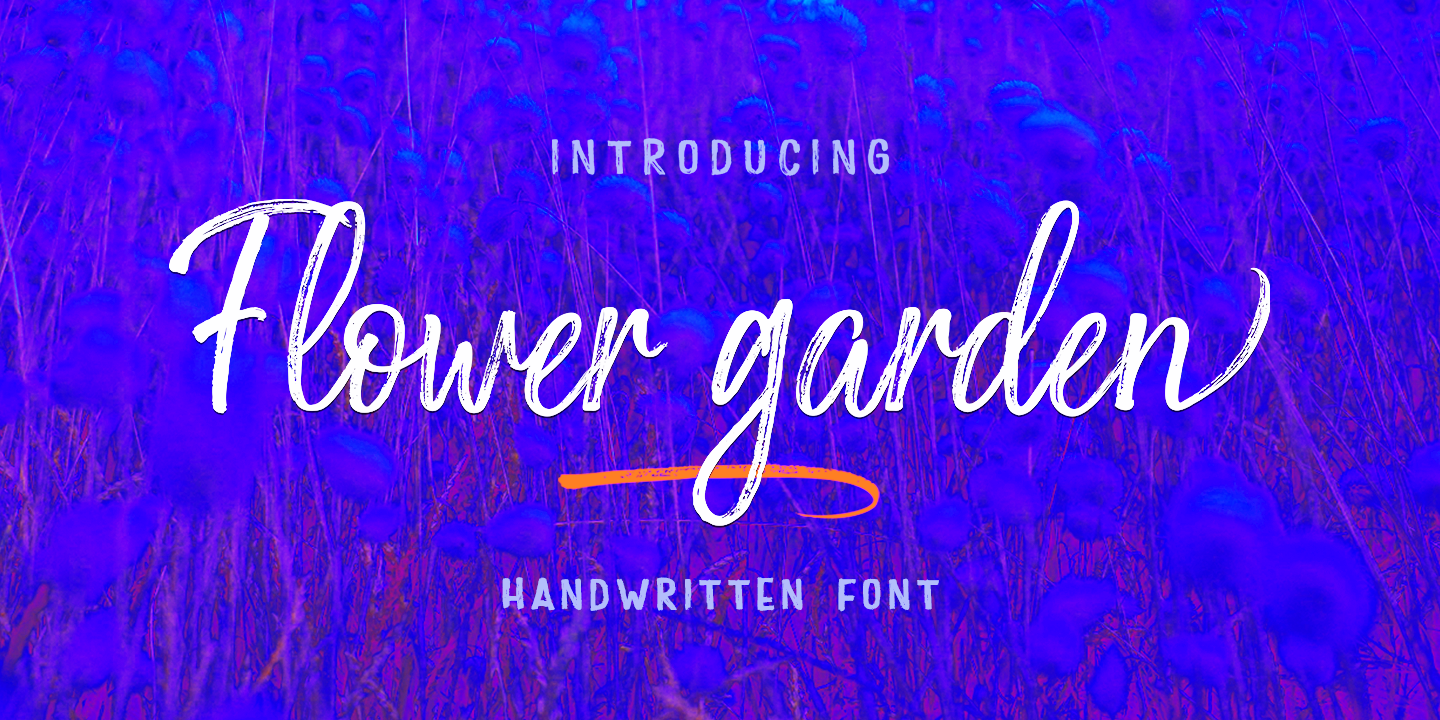
Flower Garden Font is an enchanting typeface, perfect for designs that aim to evoke beauty, nature, and a touch of whimsy. Imagine it flourishing on invitations for garden parties or spring weddings, adding a delicate charm to artisanal product packaging, or creating captivating titles for children's books. Its intricate details and organic feel also make it an ideal choice for crafting unique greeting cards, designing elegant branding for florists or boutiques, and enhancing the visual appeal of handmade craft labels. Whether you're aiming for a romantic, whimsical, or naturally inspired aesthetic, Flower Garden Font provides a unique and memorable visual experience.
What makes Flower Garden Font truly exciting is its ability to infuse designs with a sense of natural beauty and effortless elegance. Each character seems to bloom with subtle decorative elements, creating a cohesive and visually rich tapestry. This font isn't just about text; it's about adding an artistic flourish that can transform a simple layout into a captivating piece of art. It stands out from more conventional typefaces by offering a handcrafted, personal touch that resonates with audiences looking for something unique and heartfelt. The charming details and flowing lines contribute to a soft, inviting atmosphere, making it perfect for projects that require a gentle yet impactful presence.
The Flower Garden Font family often encompasses a variety of stylistic alternatives and ligatures that enhance its decorative appeal. While it might not have the extensive weight range of a more traditional text font, it typically offers different character variations that allow designers to customize the look and feel of their words. You might find ornamental initial letters, alternative endings, and ligatures that seamlessly connect characters, creating a truly bespoke appearance. Some versions may also include a slightly bolder or lighter variation to provide subtle contrast. These design elements ensure that each use of Flower Garden Font Free Download feels unique and thoughtfully crafted, reflecting the organic and varied nature of a true flower garden.